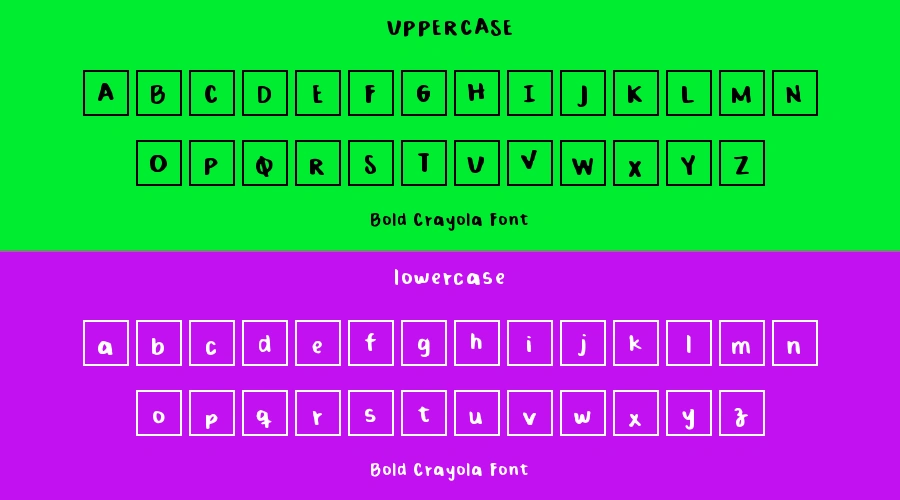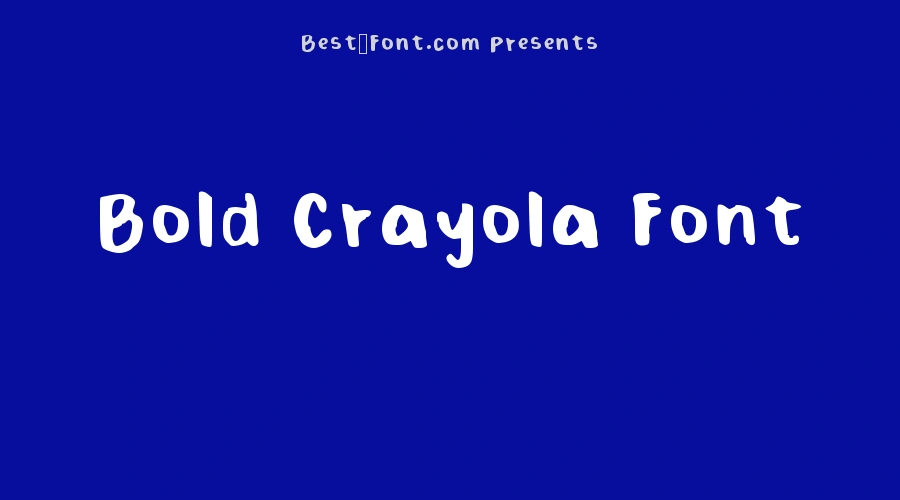
About Bold Crayola Font
Designed with precision, Bold Crayola Font merges tapered strokes with technical precision in every character. This versatility makes it particularly effective for architectural plans, where legibility and cultural resonance directly impact communication quality. Each letterform demonstrates meticulous craftsmanship.
Technical excellence shines through elements like calligraphic strokes and pi characters, enhancing typographic versatility. In research articles settings, Bold Crayola Font proves its worth through superior color application. The thoughtful execution of ascender height and consumer perception ensures professional results.